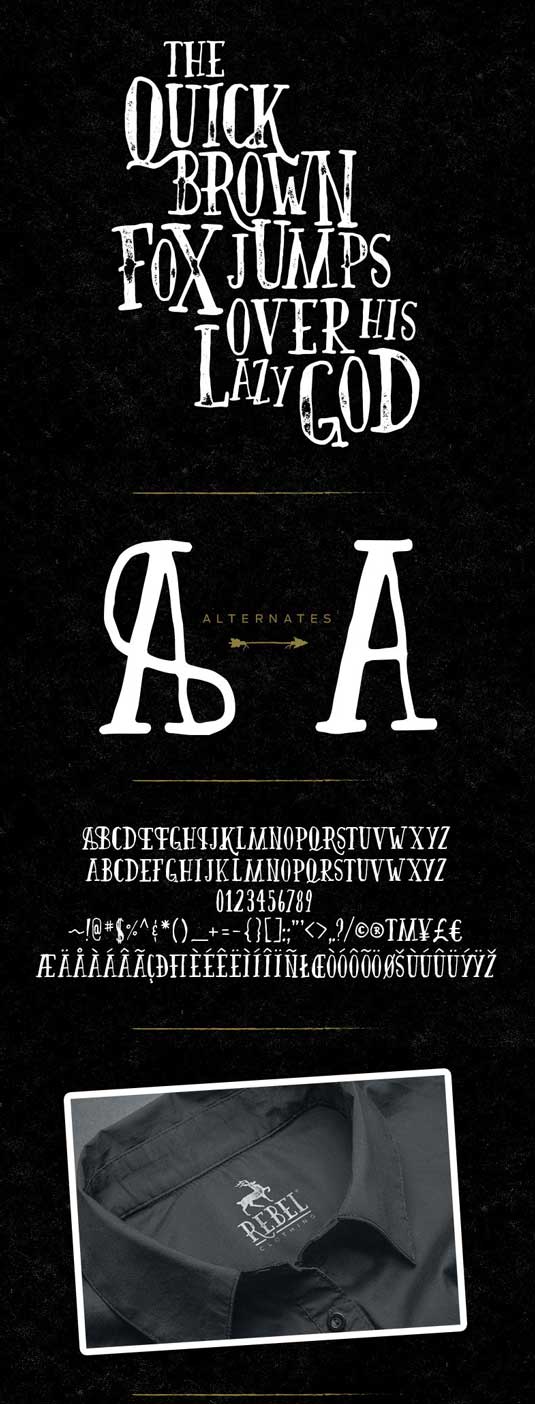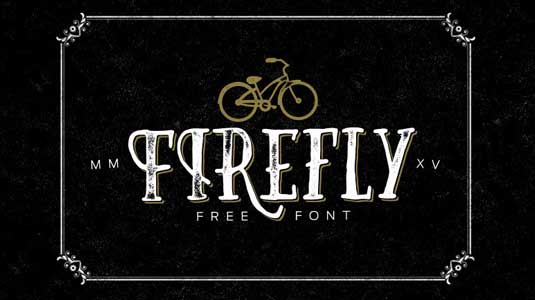
Font of the day: Firefly
Every day we showcase the best fonts on the web. Today it's Firefly by Sean Coady, which is totally free to download.
Firefly by Sean Coady
Graphic designer Sean Coady is the man behind today's font of choice, Firefly. "To celebrate the success of my font Highbinder, I'm releasing the quirky hand drawn serif Firefly for free," he comments.